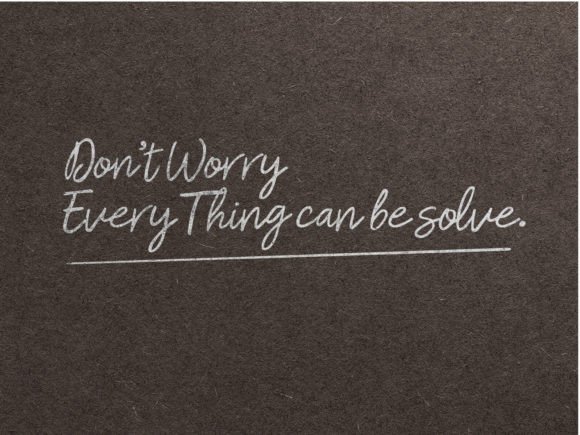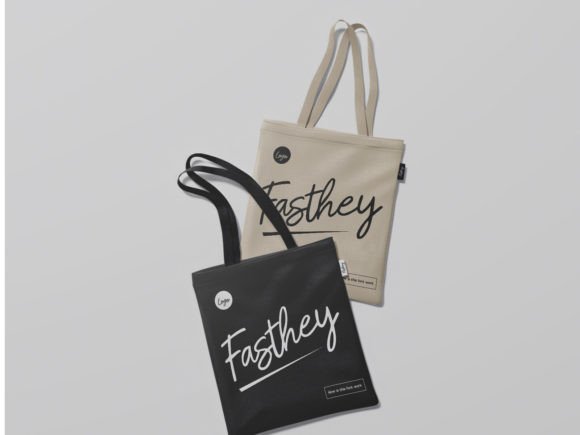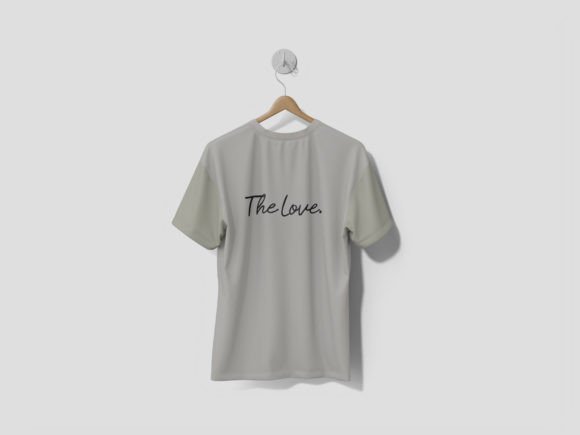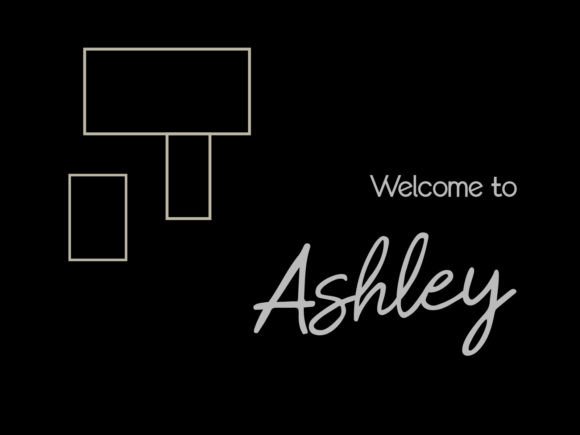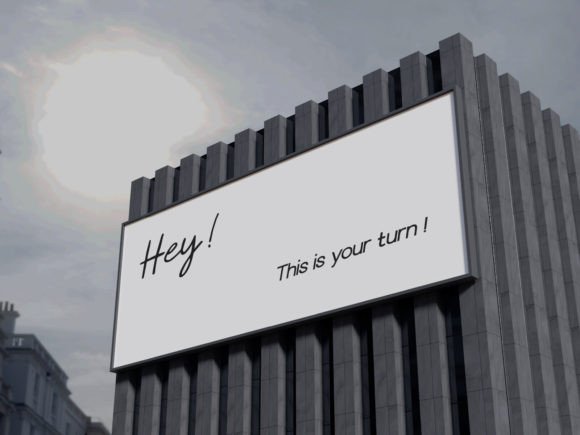
Introduction to Fasthey Font
Have you ever been working on a creative project, pouring your heart and soul into the design, and just can’t seem to find the right font to give it that extra oomph? Well, we’ve got some great news for you – we’re about to introduce you to the perfect solution: the Fasthey Font.
Fasthey Font, a professional handwritten script typeface, is a vintage-inspired script that’s sure to elevate any project you’re working on. Whether you’re designing logos, cards, apparel, or any other printed product, this high-quality font is the perfect design resource to have in your toolkit. And the best part? It’s available for free download, so you can start incorporating it into your designs right away.
As a designer, you know how valuable it is to have a reliable font that can help bring your creative vision to life. That’s exactly what Fasthey Font delivers – a beautiful, high-quality font that’s perfect for a wide range of creative projects.
Key Features of Fasthey Font
- High-quality, vector-based design for seamless scaling and crisp text output
- Transparent background option for easy integration into creative projects with complex backgrounds
- Resolution-independent, allowing for use at any size without compromising image quality
- Designed for use in a variety of creative projects, from branding and advertising to digital products and print materials
Honest Review: Fasthey Font
As a designer, I’m always on the lookout for high-quality design resources that can elevate my creative projects. The Fasthey Font caught my attention, and I decided to give it a try.
- Unique and modern design style that can add a touch of sophistication to any project
- Transparent background, making it easy to use on any background or color scheme
- High-quality font files, perfect for printing or digital use
- Free download, making it a valuable resource for designers on a budget
- Limited character set, which may not be suitable for projects requiring extensive typography
- No bold or italic variants, which may limit its use in certain design contexts
Overall, I’m impressed with the Fasthey Font’s unique design and high-quality files. While it may have some limitations, it’s a great addition to any designer’s toolkit. If you’re looking for a modern and stylish font for your next creative project, the Fasthey Font is definitely worth considering.
Tips for Getting the Most Out of Fasthey Font
Use Fasthey Font for creative projects, such as designing a logo or creating a social media graphic. With its high-quality design and free download, it’s a valuable design resource. To get the most out of it, experiment with different font sizes, colors, and transparency levels to achieve the desired effect.
Fasthey Font is commonly used for creative projects, including logo design, social media graphics, and brochures. Its transparent background and high-quality design make it a versatile design resource for designers and non-designers alike.